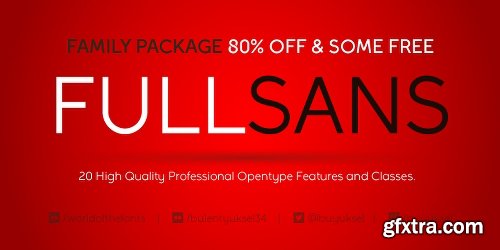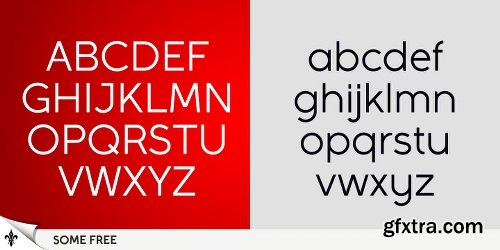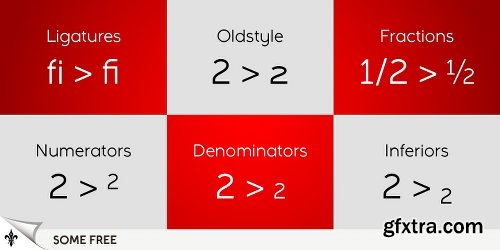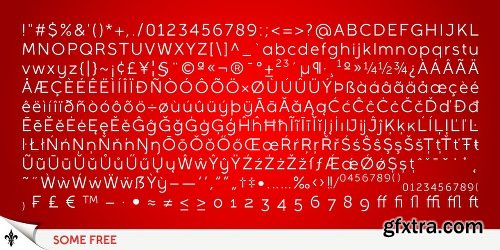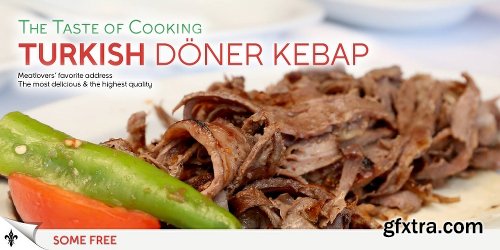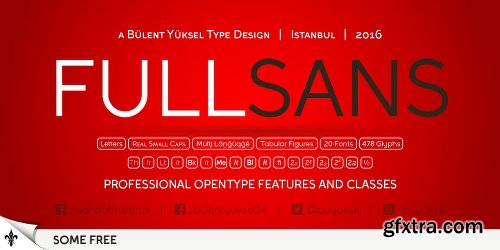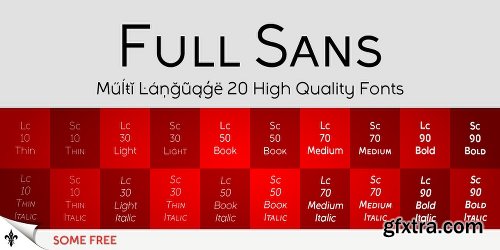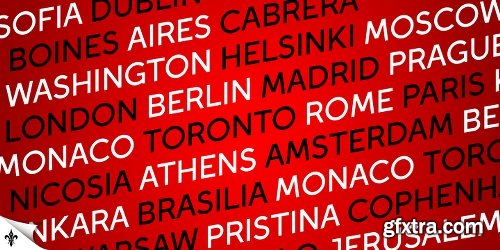
Full Sans Font Family - 20 Fonts
Full Sans is a geometric sans in the tradition of Futura, Avant Garde and the like. It has a modern streak which is the result of a harmonization of width and height especially in the lowercase letters to support legibility.
Full Sans is the younger brother of original Full Neue, Full Slab and Full Tools.
Ideally suited for advertising and packaging, editorial and publishing, logo, branding and creative industries, poster and billboards, small text, wayfinding and signage as well as web and screen design.
ull Sans provides advanced typographical support for Latin-based languages. An extended character set, supporting Central, Western and Eastern European languages, rounds up the family.
The designation “Full Sans LC 50 Book” forms the central point. The first figure of the number describes the stroke thickness: 10 Thin to 90 Bold. Full Sans LC comes 5 weights and italics also Full Sans SC comes 5 weights and italics total 20 types. The family contains a set of 485 characters.
Case-Sensitive Forms, Classes and Features, Small Caps from Letter Cases, Fractions, Superior, Inferior, Denominator, Numerator, Old Style Figures just one touch easy In all graphic programs.
Full Sans is the perfect font for web use.